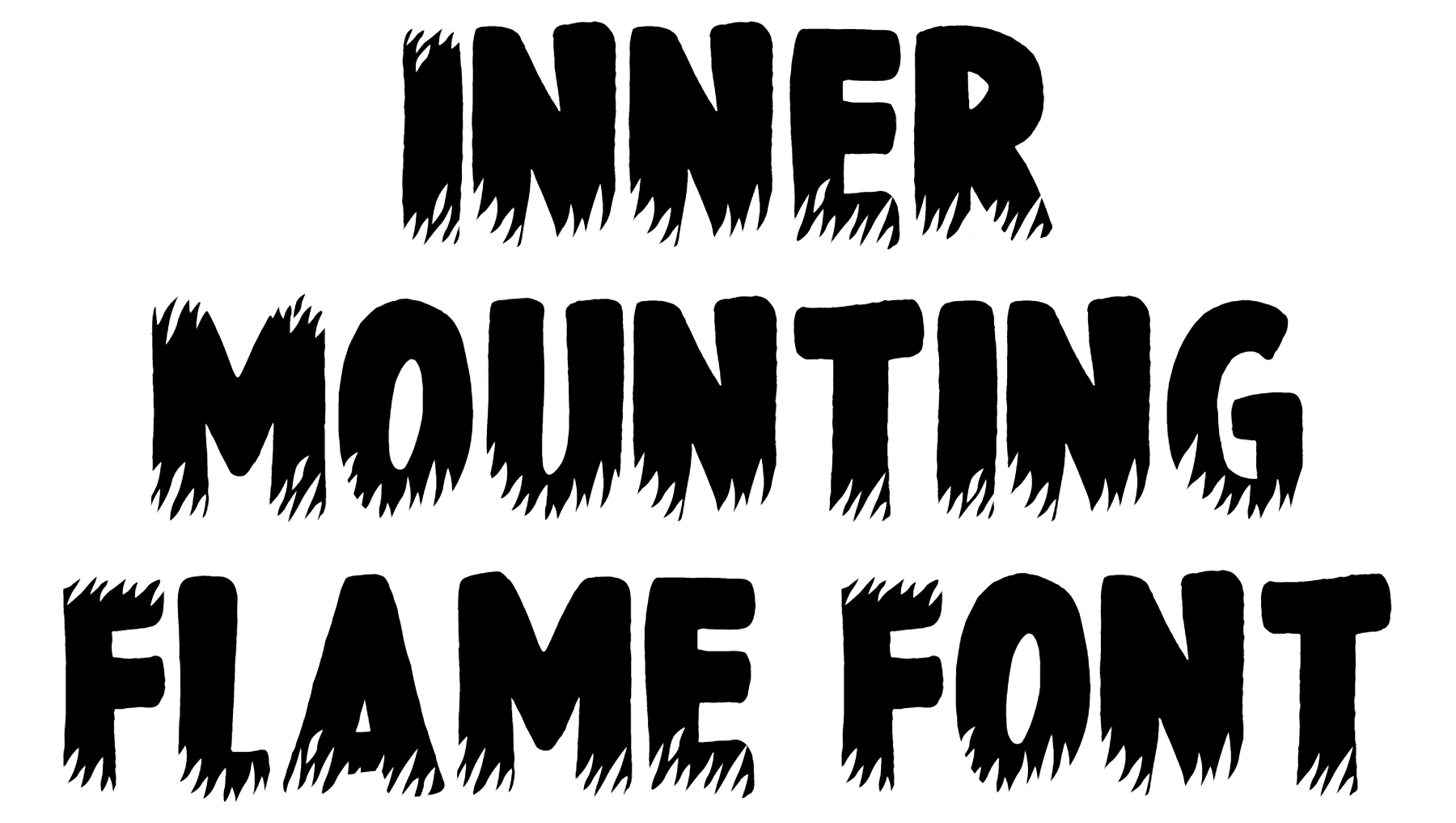
Inner Mounting Flame
Inner Mounting Flame is a fancy font created by IMAGEX (2019). It's a decorative display font with plenty of personality, made to grab attention. It's a free download, and you can try it with your own text in the preview above first.
With complete upper and lowercase letters and all ten digits, Inner Mounting Flame is ready for real wording, not just a single headline. Common punctuation such as ! and ? is included as well. It doesn't include accented letters such as é or ñ, which makes it an English-only font.
Designers usually reach for fonts like Inner Mounting Flame when they're making posters, logos and eye-catching headlines. Use it for one standout word or headline and let simpler fonts handle the rest.
No. Inner Mounting Flame has no accented letters such as é, ñ or ü, so it's best for English text.